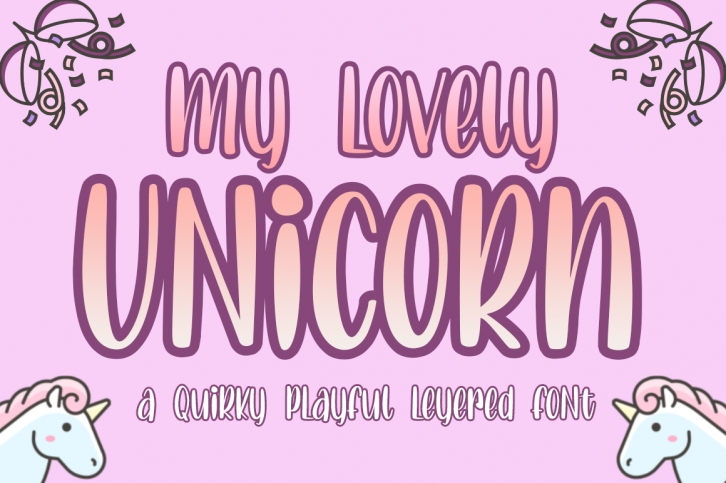
Lovely Unicorn the Quirky Playful Font Download
Lovely Unicorn the Quirky Playful is a great font that was designed by Haksen. Imagine the amount of combinations you can create using this font! The archive is 5.31 MB and it was released on January 31, 2020. Lovely Unicorn the Quirky Playful looks beautiful on wedding invitations, greeting cards, logos, posters, labels, t-shirt designs, logos, business cards and is perfect for use in ink or watercolor works, fashion, magazines, packaging and food menus, children's books and more!